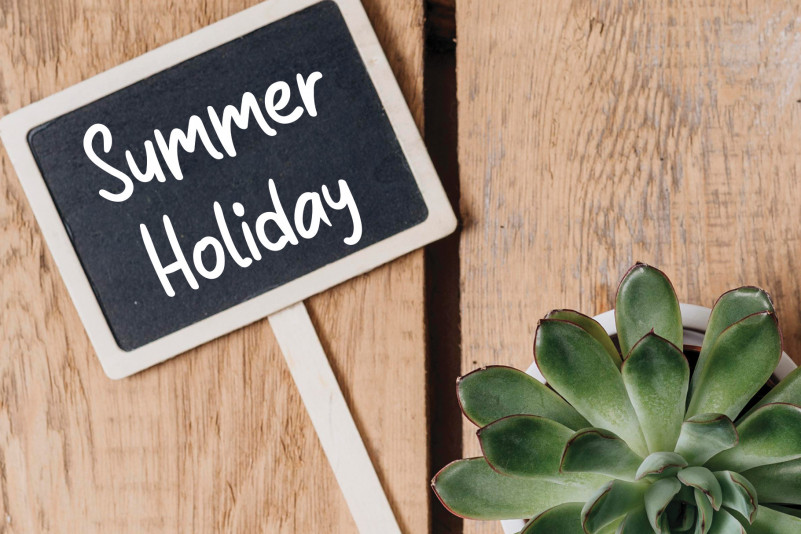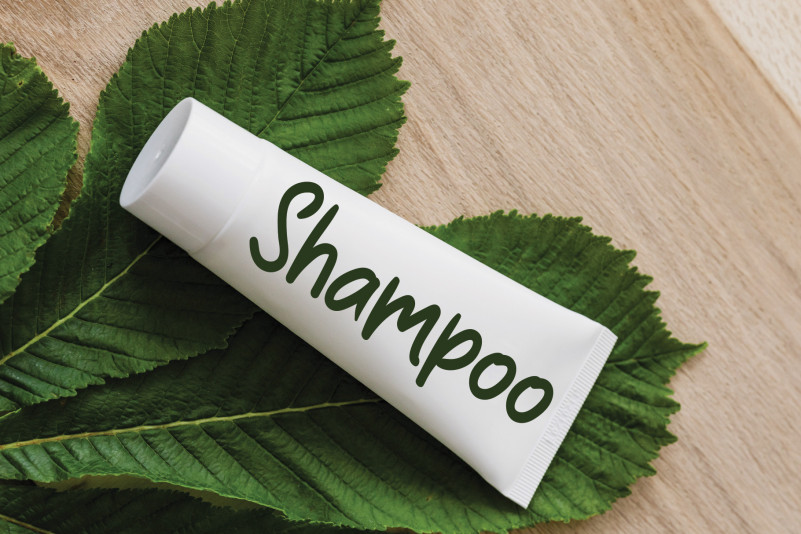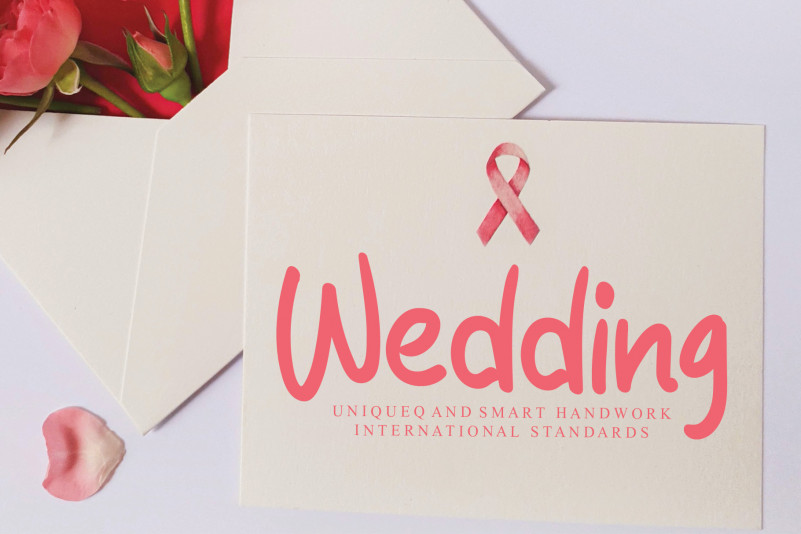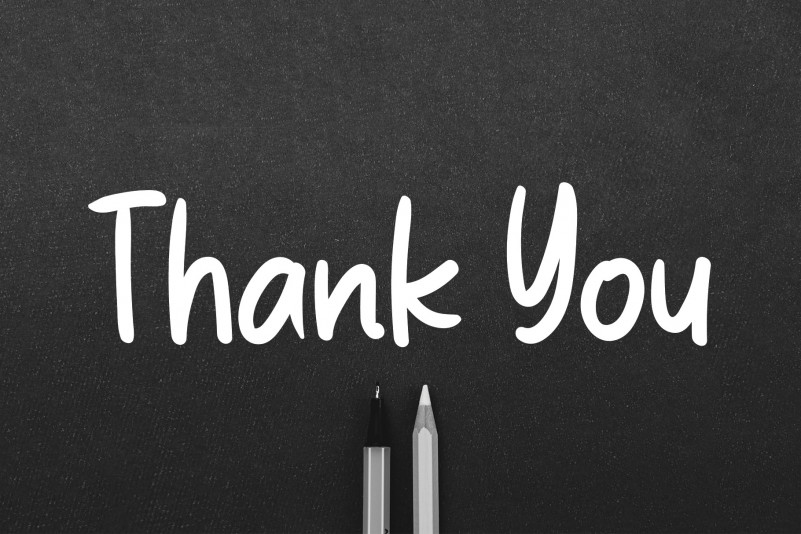
Yarrow Flower Script Font
Yarrow Flower Script Font is a cute and delicate handwritten font. It is ideal for invitations or greeting cards and for any crafting project that requires a romantic touch.